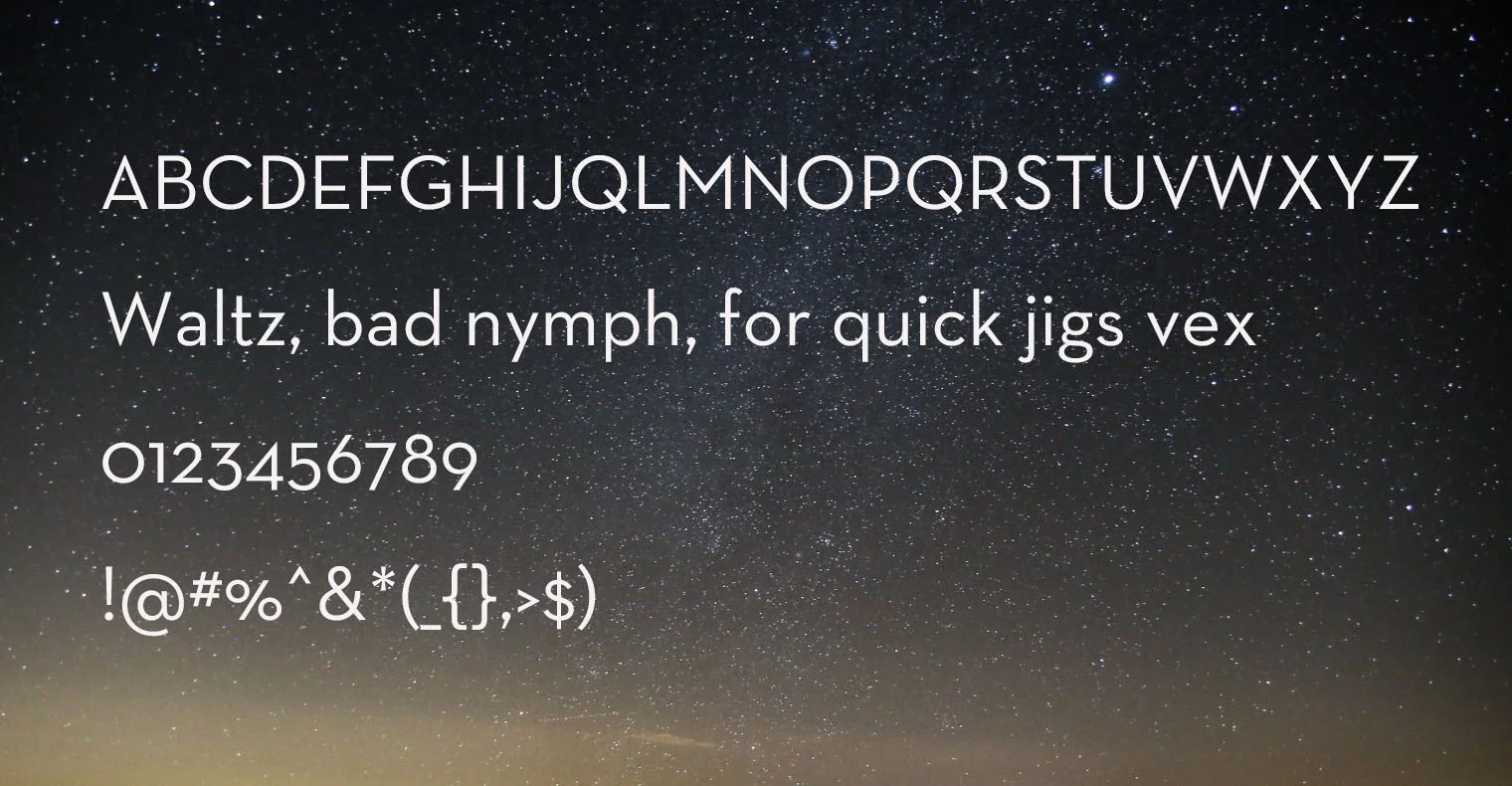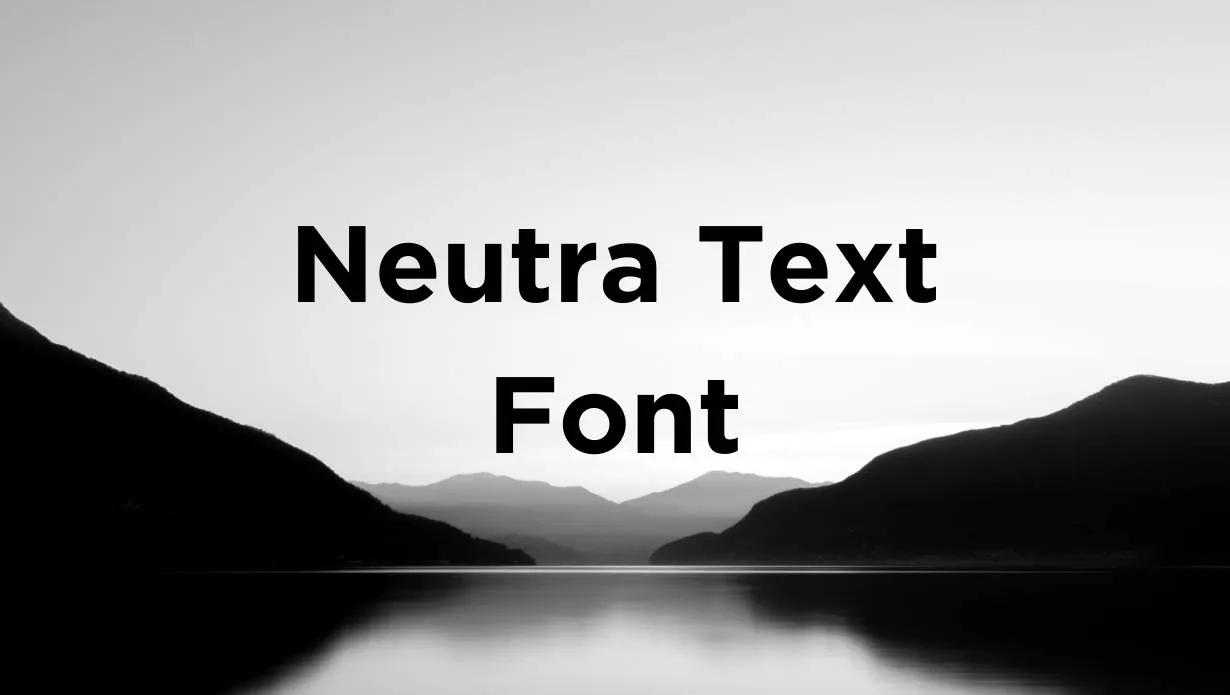
Christian Schwartz designed the modern Neutra Text font that you can use in headline and display designs. It is perfect for display projects.
Design Of Neutra Text Font
Neutra Text font is a modern-day shows font that capability an ambitious and fashionable man or woman design. You may use this light font to craft all sorts of designs from trademarks to posters, internet site headers, business cards, and lots extra.
It doesn’t compete for interest with the identity, and it continues readers shifting alongside the page. Easy, rounded and an exceptional pick for headers and minimalist posters.